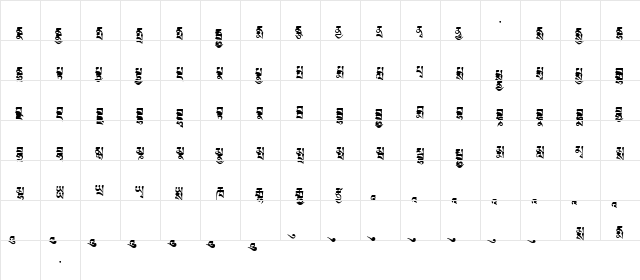
TibetanMachineWeb5 Regular
| Designer | Tony Duff |
Design Context for TibetanMachineWeb5 Typeface
TibetanMachineWeb5 is a composed and adaptable typeface that performs quietly and consistently across a wide range of design contexts.